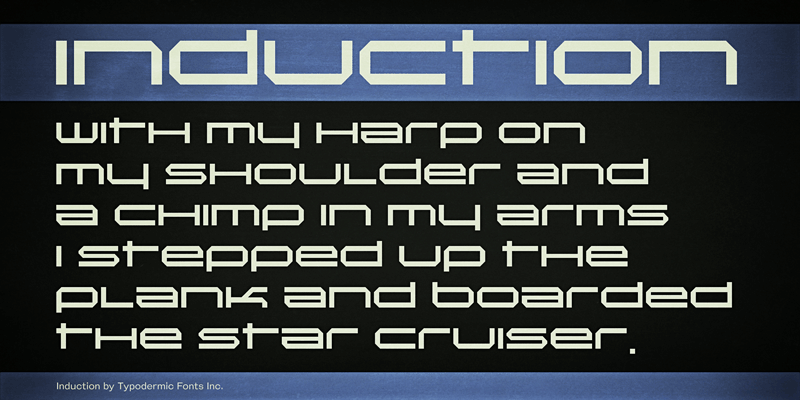
Preview and download Induction Font. Created by Typodermic Fonts in Techno Square styles with 100% Free license.
Font name: | Induction |
Induction is an outstretched digital display font. Don't forget to read the files inside the zip for details. This font includes a license that allows free commercial use: sometimes referred to as a desktop license. This allows you to install the font on a computer and use it to create posters, web graphics, game graphics, t-shirts, videos, signs, logos and more. Read the license agreement for details. If you'd like to embed this font in an app, ebook, on the web or anything that's not covered by the desktop license agreement, visit the link below. You'll find distributors who offer different types of licenses or you can contact me for help. http://typodermicfonts.com/induction/ |